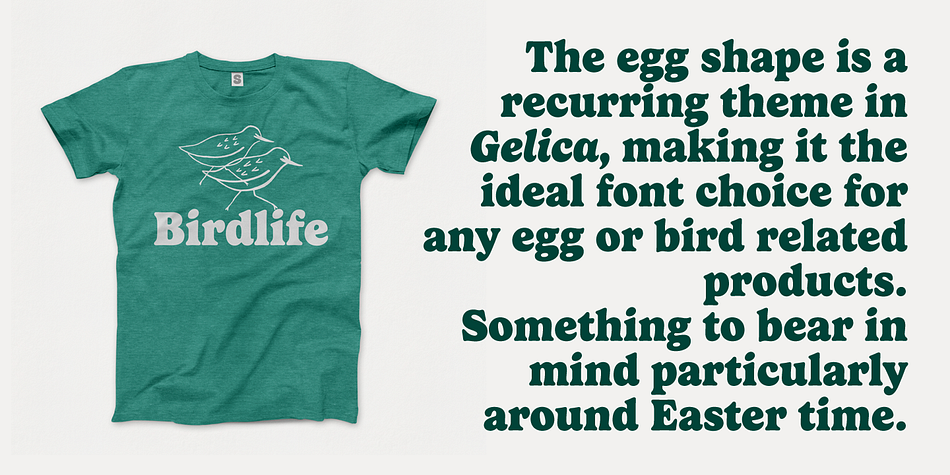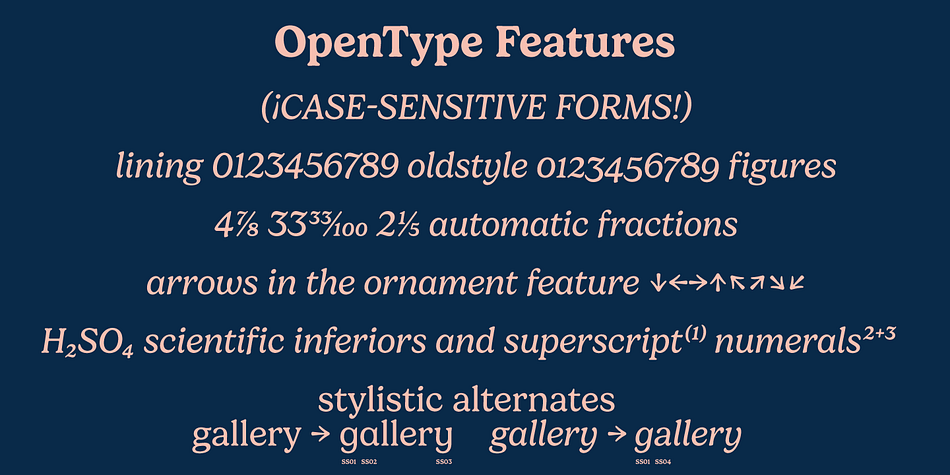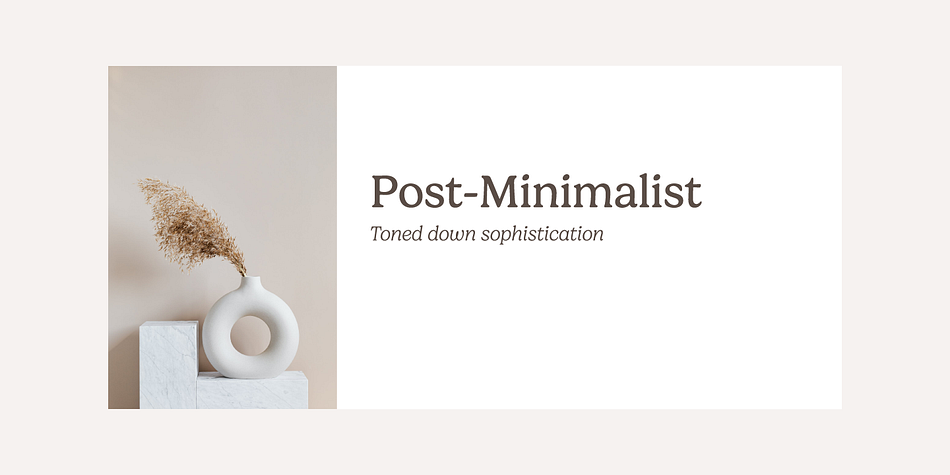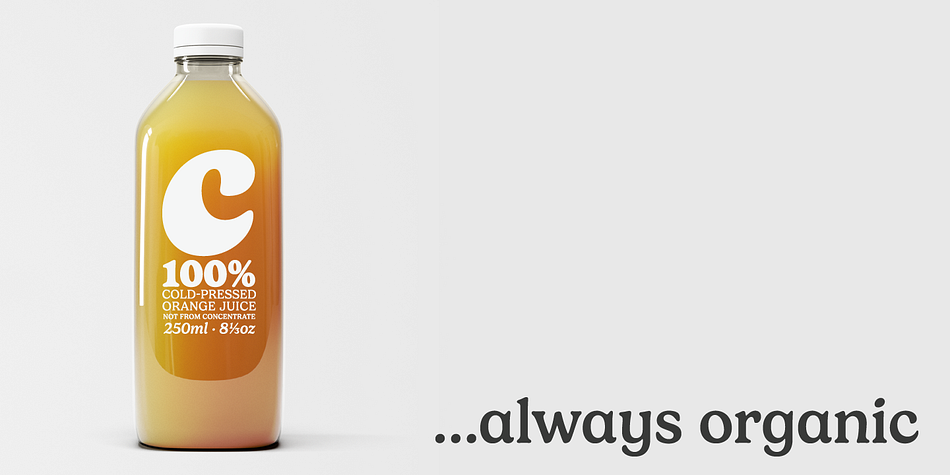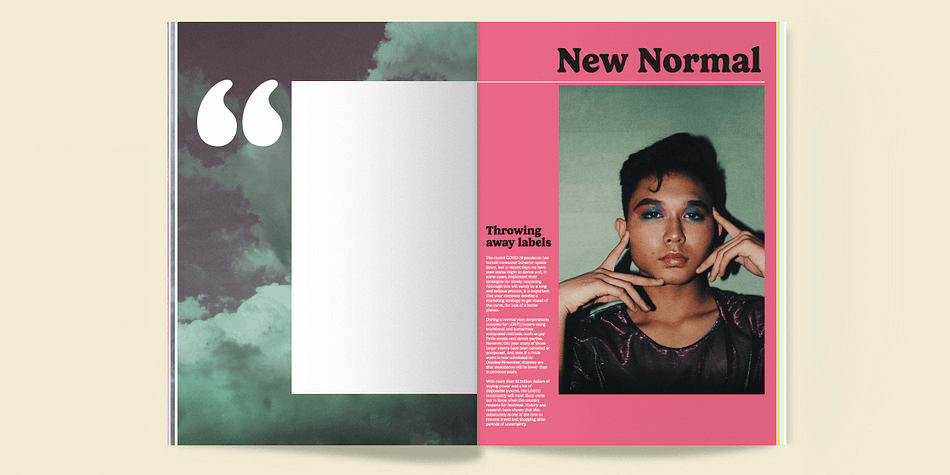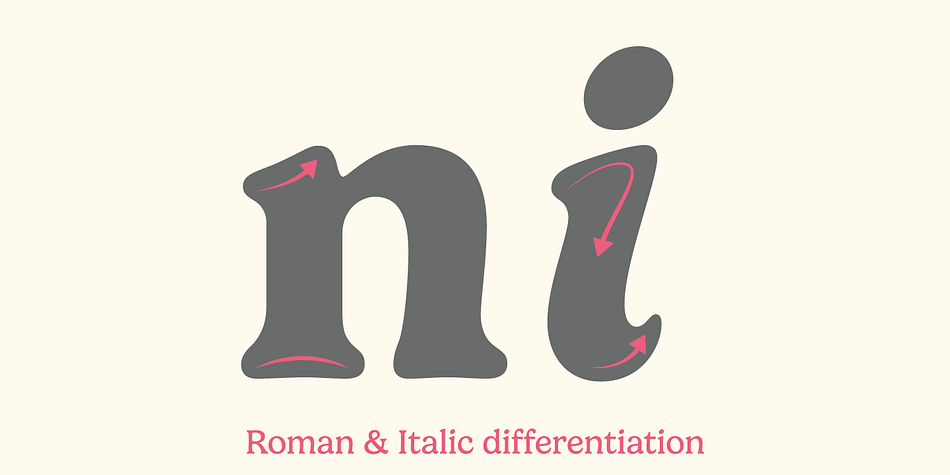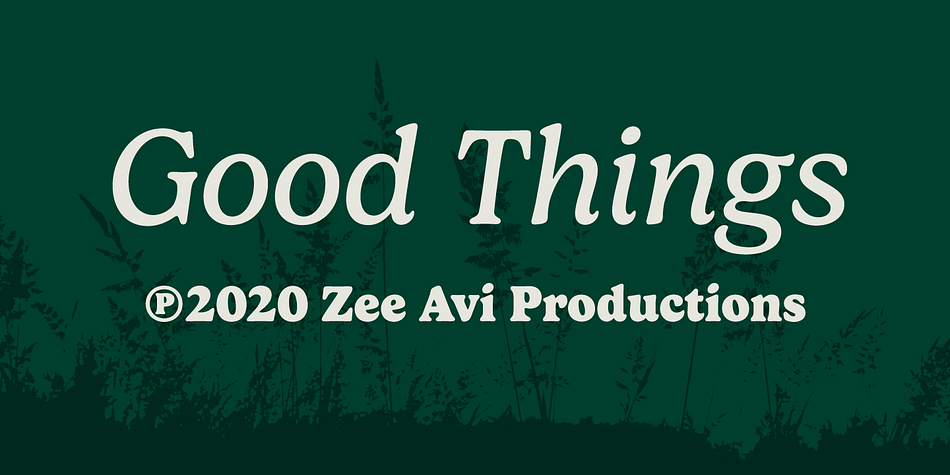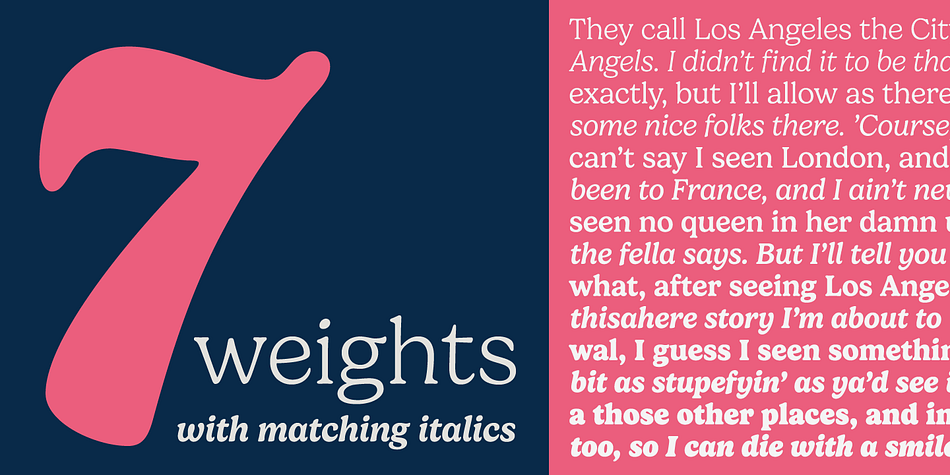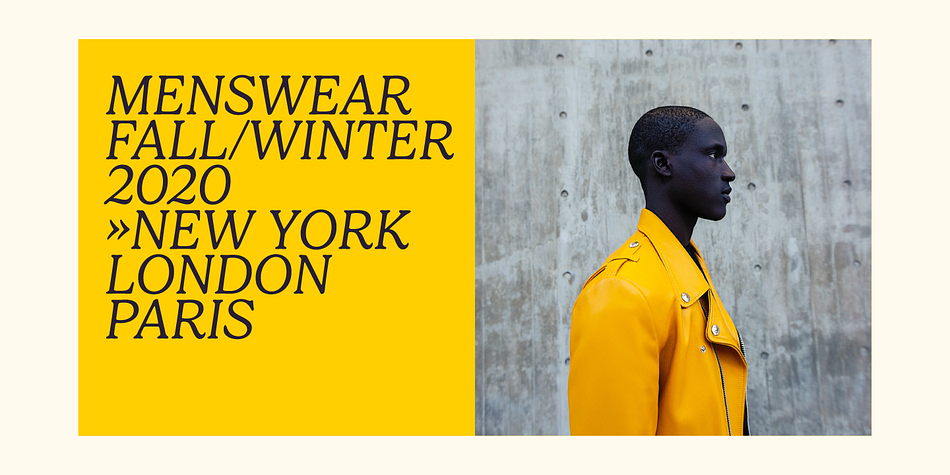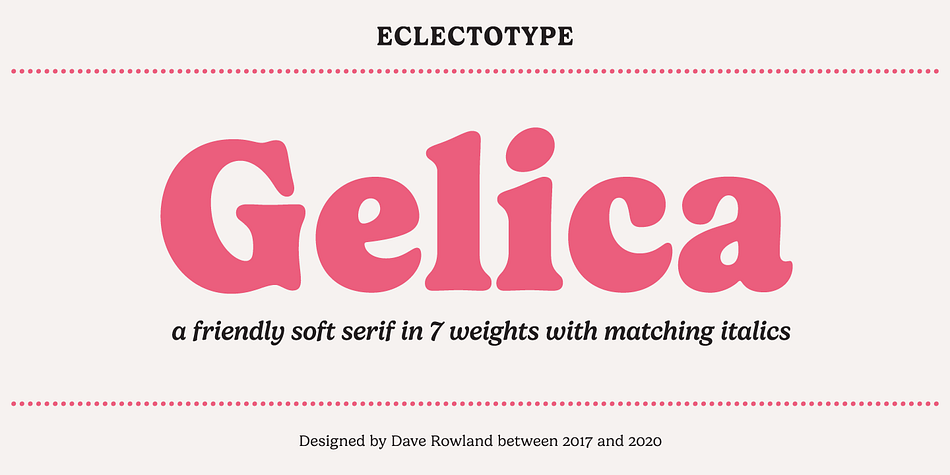
Designed by Dave Rowland, Gelica is a retro and serif font family. This typeface has fourteen styles and was published by Schizotype Fonts.
When work started on the design of Gelica, there wasn’t the same glut of retroish soft serifs there is today, and if I’d managed to complete it quicker, it might have been more trendsetter than bandwagon jumper, but that’s the way it goes sometimes! I still think it’s useful and unique enough to be a worthwhile addition to your typographic arsenal.
Although obviously influenced by Cooper, it actually owes more to the lesser known Goudy Heavyface and Ludlow Black, particularly in the concave serifs. I wanted the family to be friendly and approachable, but not overly cutesy, and usability was always the prime concern. A nice weight range with matching italics was a must, along with useful OpenType features, and various figure styles.
This is a display family first and foremost, but is also comfortable at smaller sizes for longer copy, and so works well in a supporting role to a more exuberant titling font.